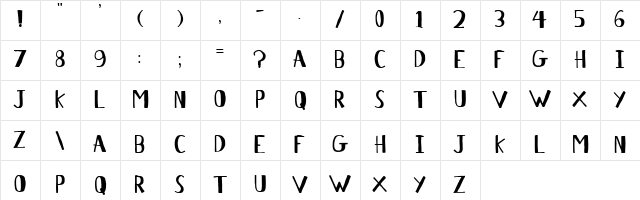
Antelope H Regular
Design Context for Antelope H Typeface
Antelope H is a composed and adaptable typeface that performs quietly and consistently across a wide range of design contexts.